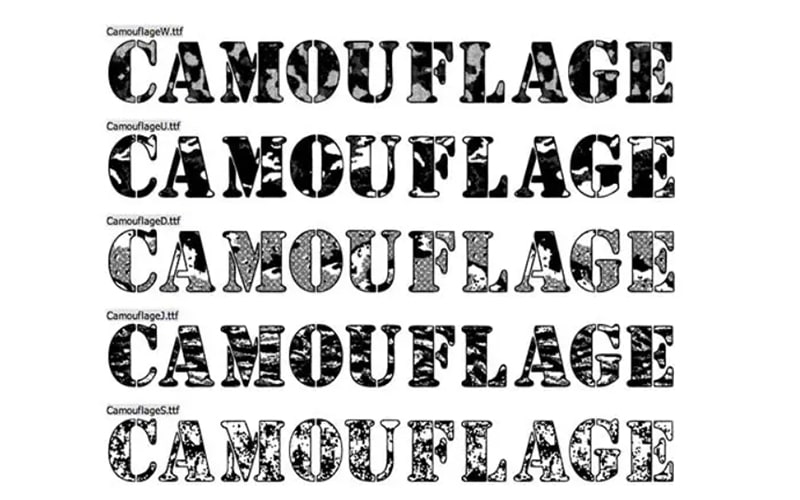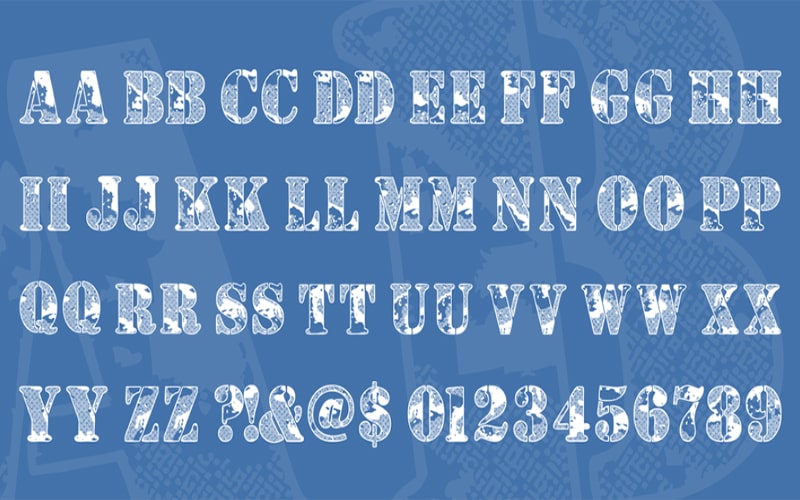
The camouflage font family is a Fancy and Unique typeface. This font looks more appealing and elegant because of its bold capital and more attractive letters.
This dazzling and alluring font has created by Mr. Anthony Robinson for the first time. It consists of Afflicted army letters with rough and textural quality.
Robinson is a British font designer. For making this font design, he has taken inspiration from the commando uniform and the British flag.
This enthralling and fetching font contains only 1 regular style such as the “Camouflage Font Family Regular” style. You can get a lot of benefits from your various projects.
It is perfectly suitable for different stylish purposes such as logo crafting, book layout, brochures, business cards, product packaging, banners, newspaper ads, and substantially more.
It consists of 128 defined characters. So you guys can use this adorable and beckoning typeface in your various ongoing projects without any hesitation.
This astonishing free version font has 128 characters that are available in all lowercase and uppercase letters, a few numbers, and some special characters as well.